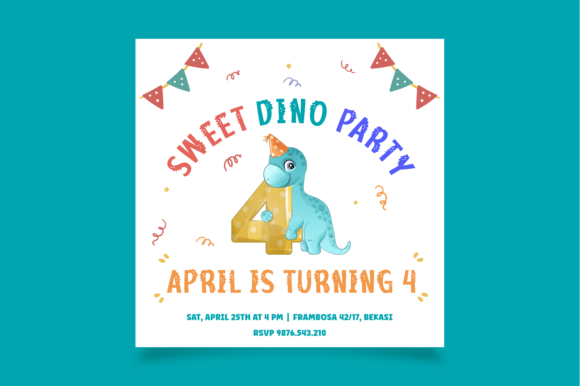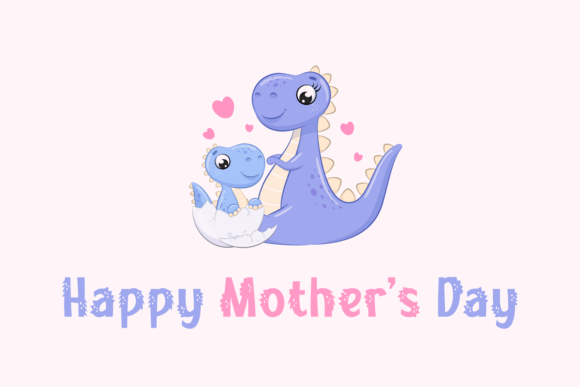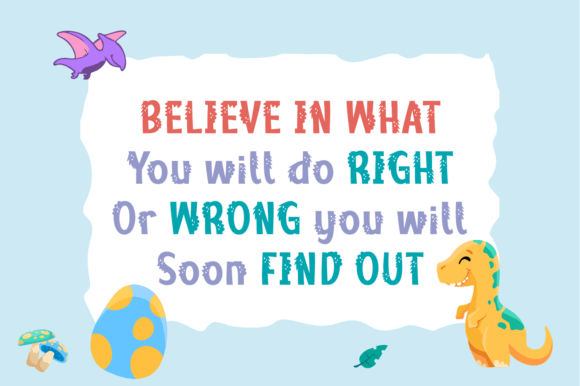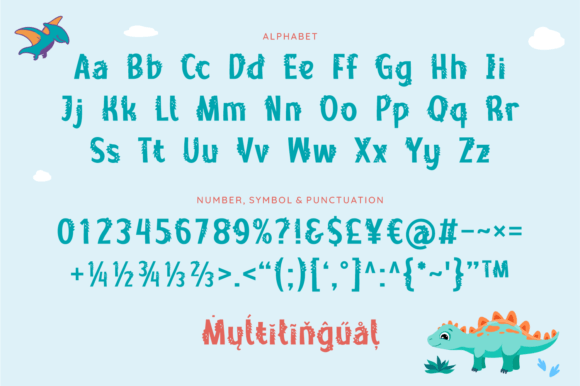
Introduction to Good Dino Font
Good Dino is a delightful decorative font that is now available to add flair to your projects.
Its playful accents make it ideal for creating eye-catching invitations, posters, and social media posts Make your designs stand out with this fontโs unique and sophisticated touch.
Good Dino Font offers exceptional quality and versatility, making it a valuable addition to your design toolkit. Whether you’re creating for personal projects or commercial use, Good Dino Font delivers professional results.